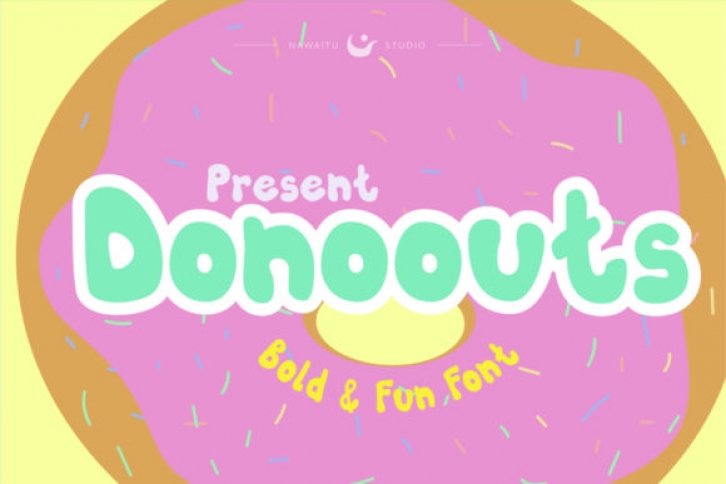
Donoouts font has a unique and funny style, perfect for invitations, frames, wall decorations, clothing brands, screen printing, and any other design idea that requires a cheerful vibe.